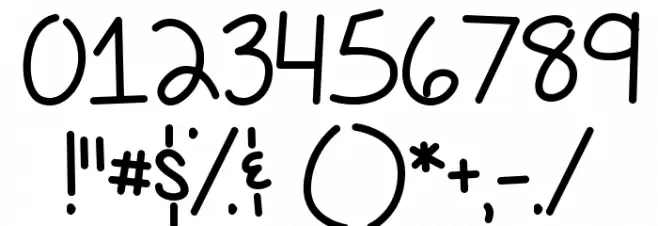
MissIssippi Font
MissIssippi Description
This playful and whimsical font features a handwritten style with a casual, friendly appearance. The characters are slightly irregular, adding a personal touch that mimics natural handwriting. The uppercase letters are tall and slender, while the lowercase letters are round and open, providing a nice balance. The numerals are bold and clear, making them easily readable. Special characters are creatively designed, maintaining the font's overall playful aesthetic. This font is perfect for projects that require a personal, informal touch.
A playful, handwritten font with a casual and friendly style from Uncategorized fonts.
- Proposed Projects: Ideal for greeting cards, children's books, personal blogs, and informal branding.
- Overall Style: Casual
- Use Case: Headlines, Informal text, Creative projects